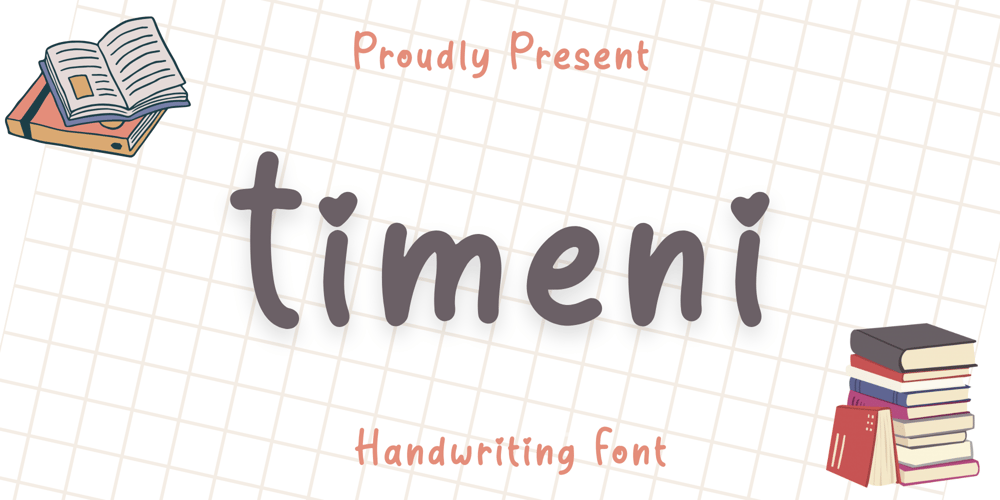
Timeni
Timeni font
Timeni Font Family was designed by Nur Aiysah Amalia and published by Aisyah. Timeni contains 1 styles and family package options. The Timeni Handwriting Font exudes a lovely and enchanting charm, reminiscent of heartfelt notes passed between friends or the delicate pages of a cherished diary. Its gracefully flowing letters are designed with a soft touch, each character tenderly connecting to the next, creating a seamless and inviting text flow. The gentle variance in stroke thickness and the subtle imperfections in its forms lend Timeni an authentic handwritten feel, making it incredibly warm and lovelyIt’s perfect for wedding invitations, heartfelt greeting cards, blogs, and any project that calls for a touch of love and sincerity. Timeni Handwriting Font is not just a typeface; it’s a vehicle for conveying deep emotion and beauty, inviting readers into a world of intimate expression. Its loveliness lies in its ability to turn simple messages into cherished memories, making it an invaluable tool for designers wishing to add loving touch to their work.